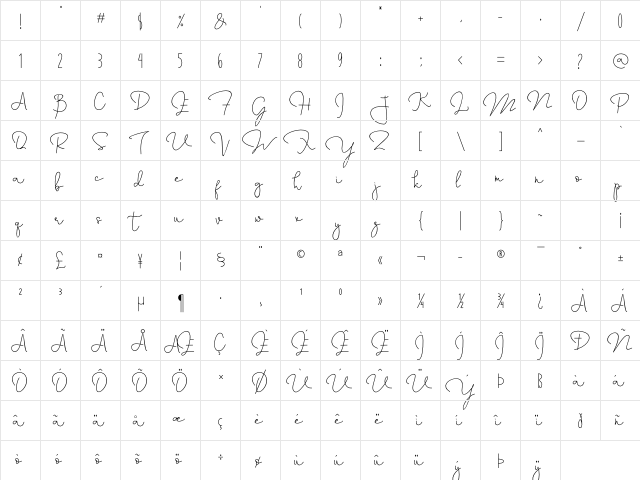
Annisa Regular
| Designer | Aldedesign 2018 |
Design Context for Annisa Typeface
Annisa is a composed and adaptable typeface that performs quietly and consistently across a wide range of design contexts.